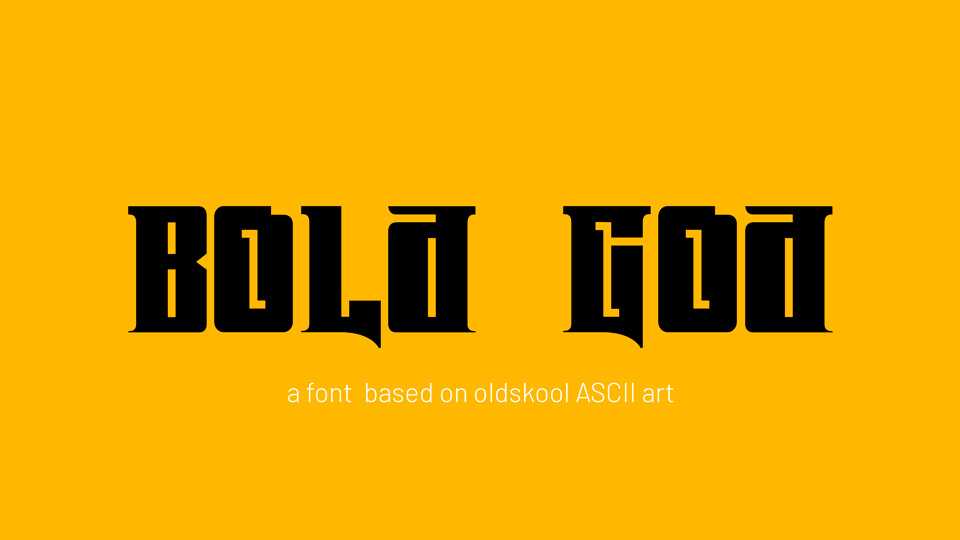
BOLd GOd dISPLAY Font › Fontesk – Download Grátis
Download BOLd GOd dISPLAY font, a typeface in one weight based on “oldschool” ASCII art. BOLd GOd is perfect for labels, posters and retro artworks.
Designer: Rory King